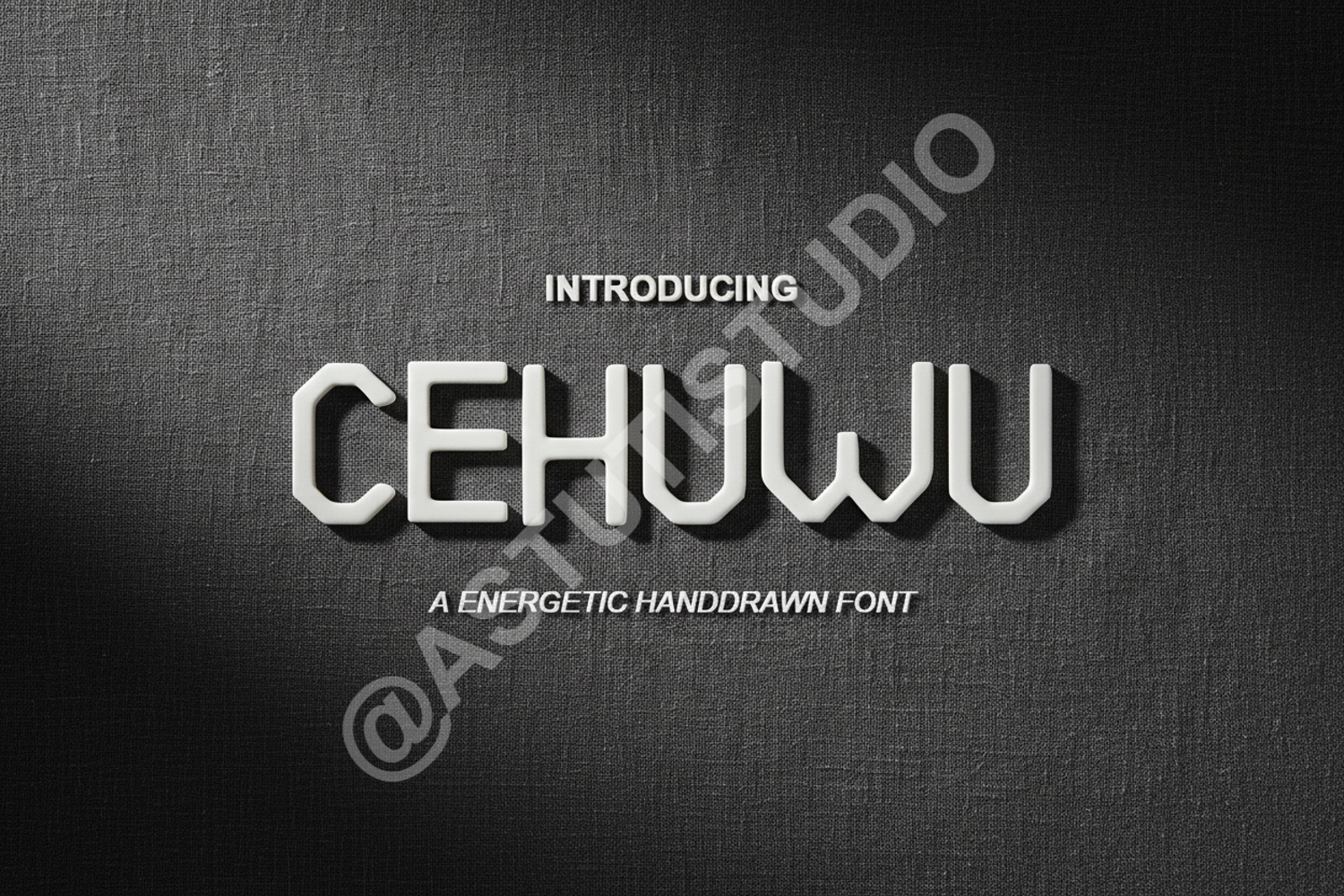
Cehuwu - Modern Elegant Serif Typeface
Cehuwu
Cehuwu is a sophisticated serif font designed to bring a touch of luxury and timeless elegance to your creative projects. With its balanced proportions and clean lines, this typeface bridges the gap between classic tradition and contemporary design. Whether you are aiming for a minimalist look or a bold editorial statement, Cehuwu provides the versatility and premium quality required for high-end design work.
- Comprehensive set of uppercase and lowercase letters
- Standard ligatures and unique alternates for custom flair
- Full multilingual support for global accessibility
- High-end Branding and Logo Identity: Create a memorable and professional brand presence.
- Wedding Invitations and Stationery: Add a touch of class to special occasion materials.
- Editorial Layouts: Perfect for magazine covers, headers, and body text.
- Social Media Graphics: Elevate your digital content and lifestyle photography.
- Product Packaging: Ensure your products stand out with premium typography.